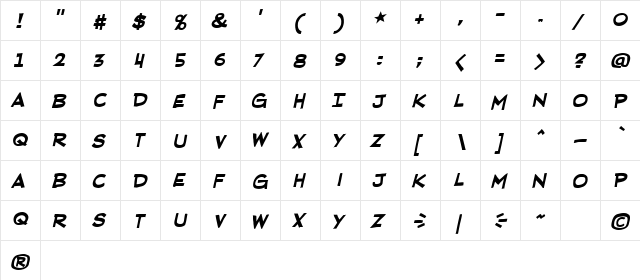
RedStateBlueState BB Bold
Design Context for RedStateBlueState BB Typeface
RedStateBlueState BB is a composed and adaptable typeface that performs quietly and consistently across a wide range of design contexts. Its bold stroke weight gives it real presence on the page.